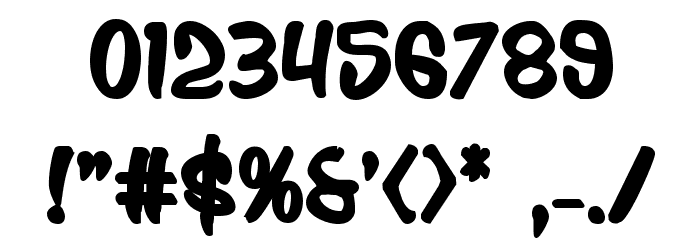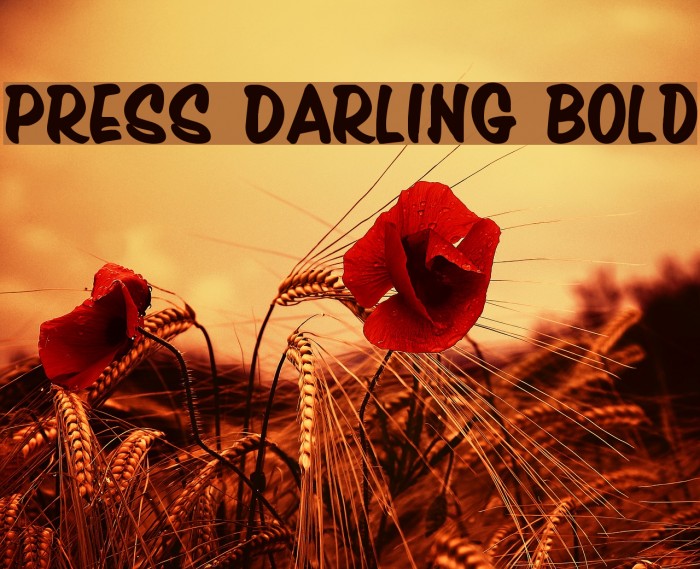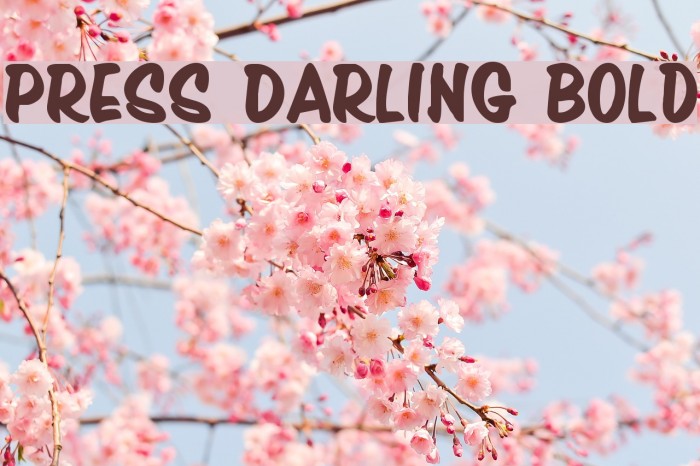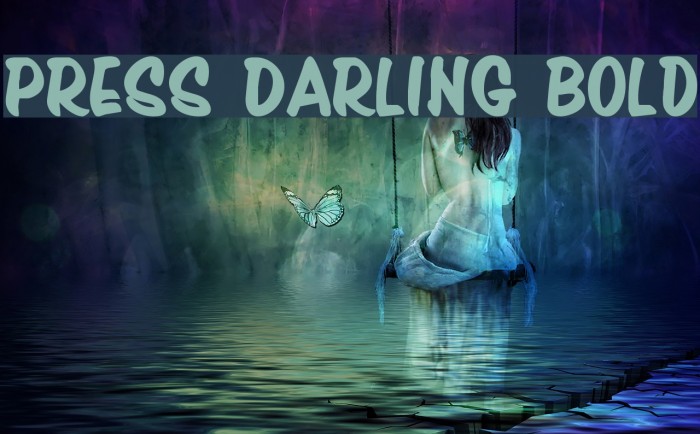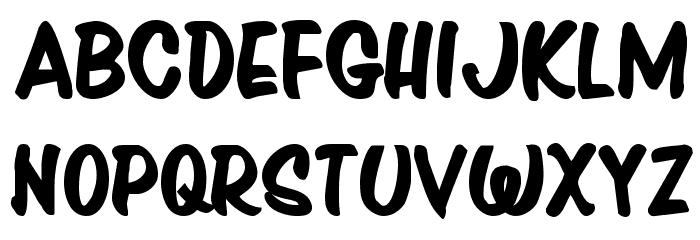
Press Darling Bold Font
Press Darling Bold Description
This bold and expressive font features thick, rounded strokes that convey a sense of playfulness and energy. The characters are slightly slanted, adding a dynamic feel, while the bold weight ensures strong visibility and impact. The uppercase and lowercase letters maintain a consistent style, with a slight variation in the curvature and width of certain characters. The numbers and special characters are equally bold and well-defined, making them suitable for attention-grabbing designs. The font's overall appearance is modern and vibrant, ideal for projects that require a lively and engaging typeface.
| Proposed Projects | Perfect for branding, posters, headlines, and any design needing a lively touch. |